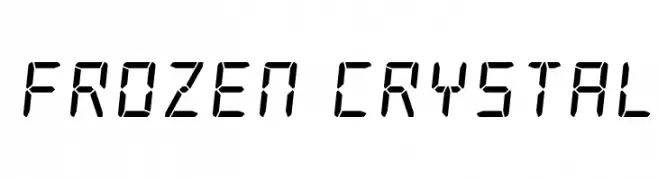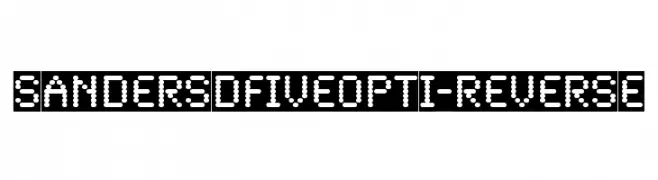
A bold, geometric font inspired by classic mechanical scoreboards.
A modern, geometric font with clean lines and rounded edges, ideal for digital displays and branding.
A dot-based display font with a digital, pixelated style.
A segmented, LED-inspired font with a technical and futuristic style.
A modern, digital-inspired font with an italic, segmented LED display style.
A dotted, pixelated font with a retro digital aesthetic.
A segmented, geometric font inspired by classic LCD digital displays.
A digital-style font with geometric, LED-inspired characters.
A bold, handwritten font with a playful and energetic style.
A dot matrix font with a futuristic and retro digital display style.
A pixelated, retro font inspired by early digital displays.
A bold, modern font with tall, narrow characters and sharp angles.
A modern, dotted font with a digital, pixelated style.
A digital-inspired font with angular, segmented lines resembling LED displays.
A digital, segmented font with a geometric, LED display style.
A digital-inspired, geometric font with a futuristic and condensed style.
A geometric, digital-inspired font with angular segments and a futuristic look.
A bold, decorative font with a crystal-like, three-dimensional appearance.
Bold, playful font with a 3D shadow effect and rounded edges.
A bold, 3D-style font with playful outlines and a dynamic appearance.
A bold, wide, and playful font with a comic-inspired style.
A bold, playful font with rounded edges and a hand-drawn style.
A bold, wide, and playful font with a cartoonish style.